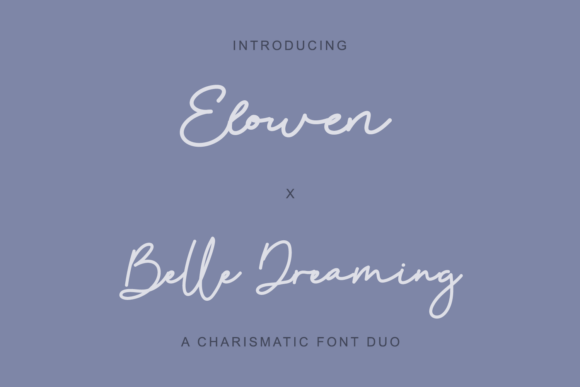
Discover the Enchanting Allure of Elowen and Belle Dreaming Fonts
As designers, we’ve all been there – staring at a blank canvas, searching for the perfect font to capture the essence of our project. It’s that moment when the right combination of style and sophistication can elevate our work from ordinary to extraordinary. And that’s exactly where the captivating Elowen and Belle Dreaming fonts come in.
These two fonts, designed to work in perfect harmony, exude a sense of mystical charm with their expressive handwritten style. Whether you’re crafting a romantic invitation, a social media post, or a personal message, Elowen and Belle Dreaming offer a unique dimension to your design. Their ability to evoke a sense of whimsy and sophistication makes them a valuable asset for any designer looking to add a touch of handwritten authenticity to their work.
Elowen X Belle Dreaming Font Key Features
- Font Family: Elowen X Belle Dreaming Font
- Font Size: 8,000+ glyphs, including Latin, Cyrillic, and Greek alphabets
- Unique Characteristics:
- Whimsical and dreamy feel, perfect for creative projects
- Includes a wide range of ligatures and swashes for added flair
Elowen X Belle Dreaming Font Review
As a designer, I was excited to dive into the Elowen X Belle Dreaming Font and see what it had to offer. Overall, I found it to be a visually stunning font that would be perfect for dreamy, whimsical projects. ✨
The font’s unique blend of elegant and rustic elements creates a truly one-of-a-kind look that’s sure to grab attention. ✨ The subtle connections to Celtic and Norse mythologies add an extra layer of depth and meaning to the design. ✨ I also appreciate the wide range of language support, making it a great choice for projects that require multiple languages.
- ⚠️ Lack of bold weights – the font’s bold style can become overwhelming in some cases
- ⚠️ Not ideal for highly technical or formal projects – the font’s dreamy feel may not be suitable for projects that require a more serious tone
Overall, I think the Elowen X Belle Dreaming Font is a great choice for designers looking to add a touch of magic to their projects. While it may have some limitations, its unique look and wide range of language support make it a great addition to any designer’s toolkit.
For optimal results, use the Elowen X Belle Dreaming Font in projects that require a whimsical or dreamlike atmosphere. It pairs well with pastel colors and floral patterns. Use it for invitations, branding, and editorial content.